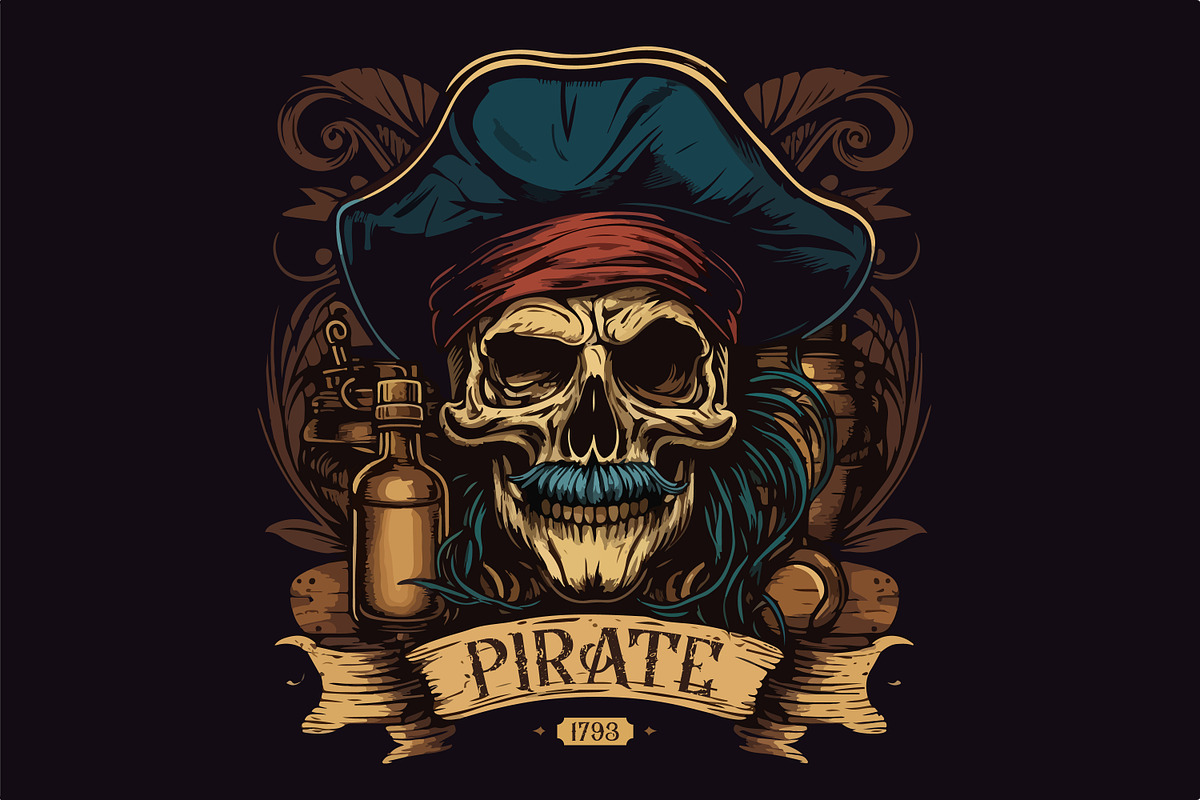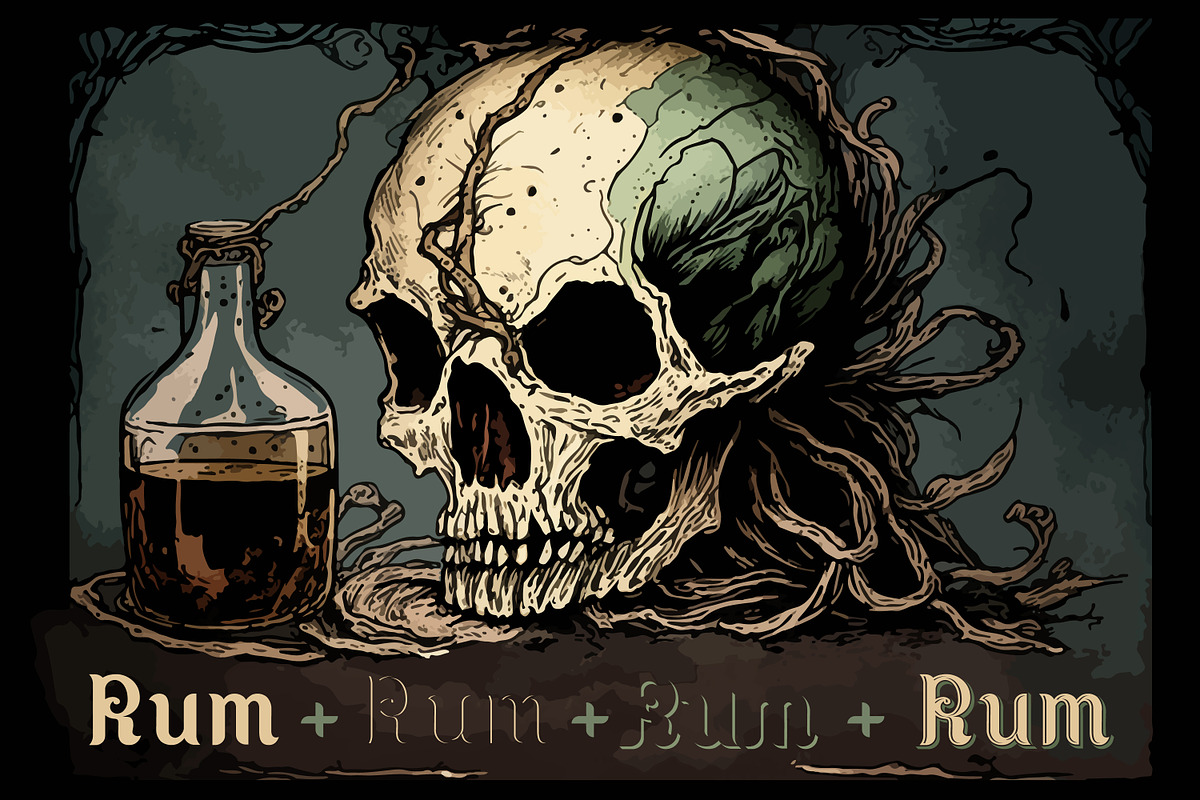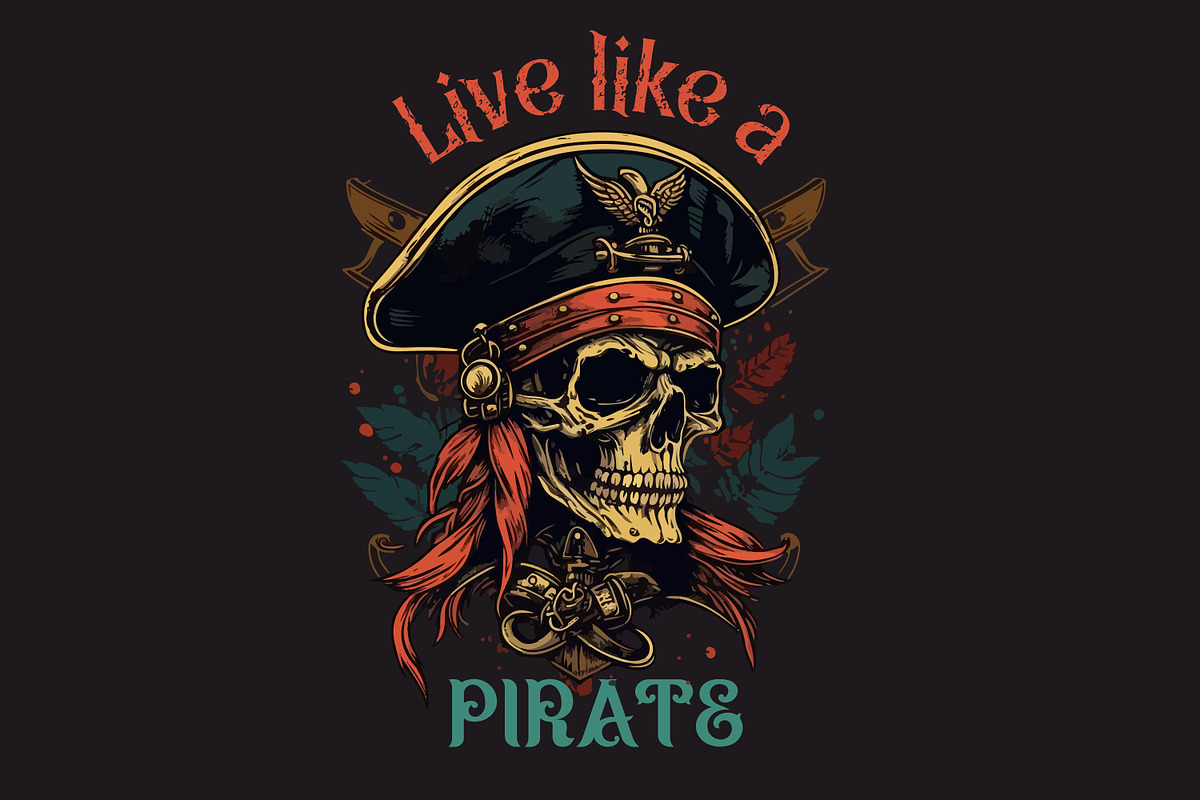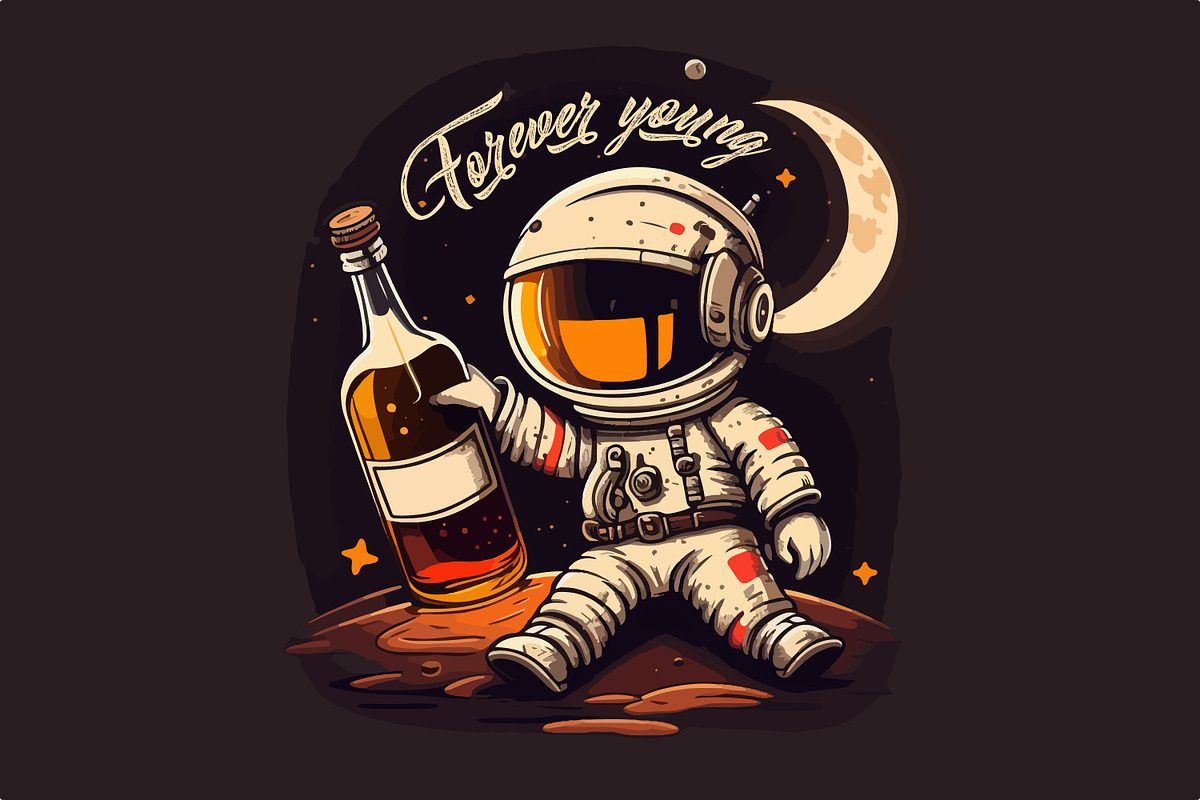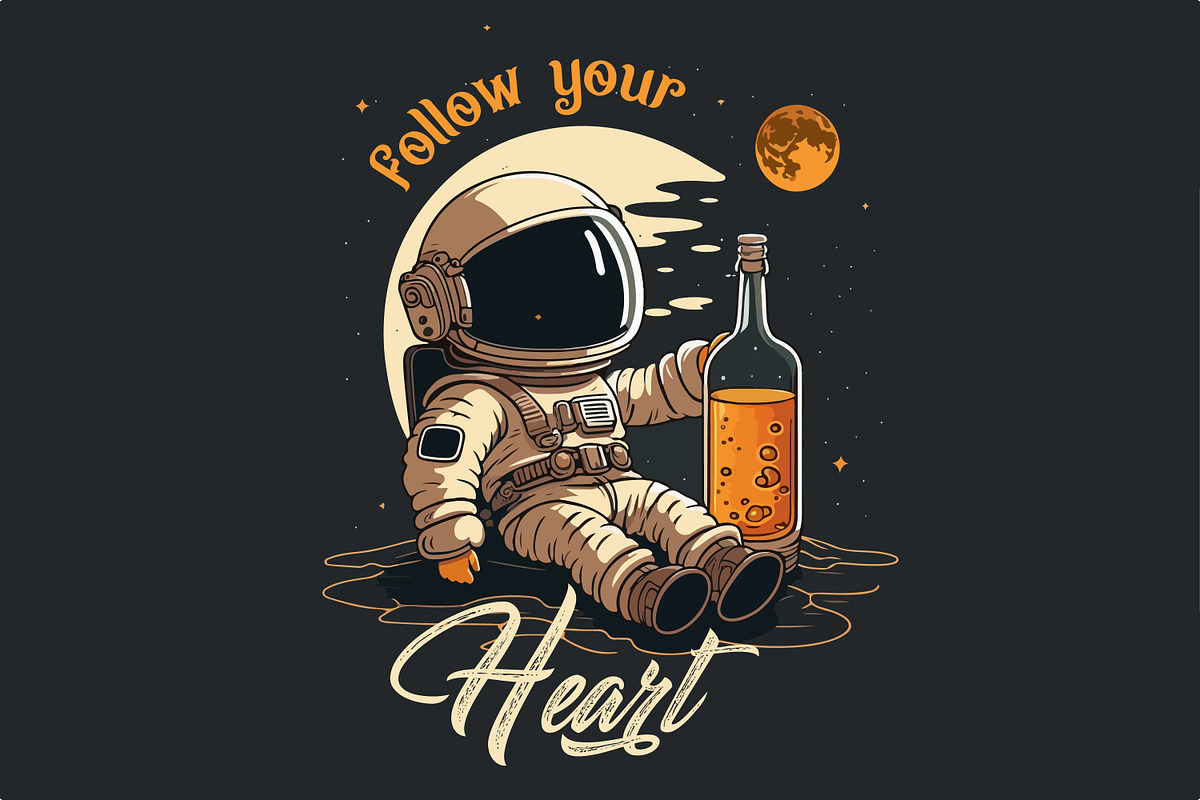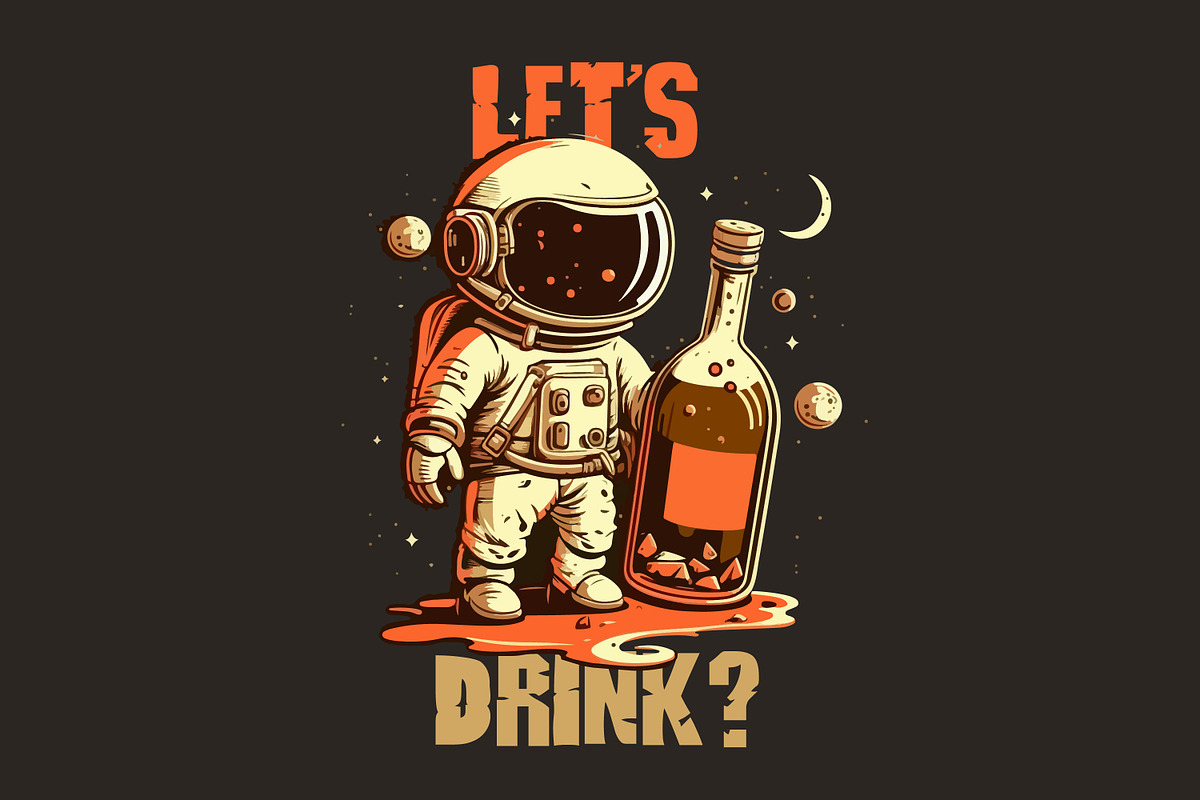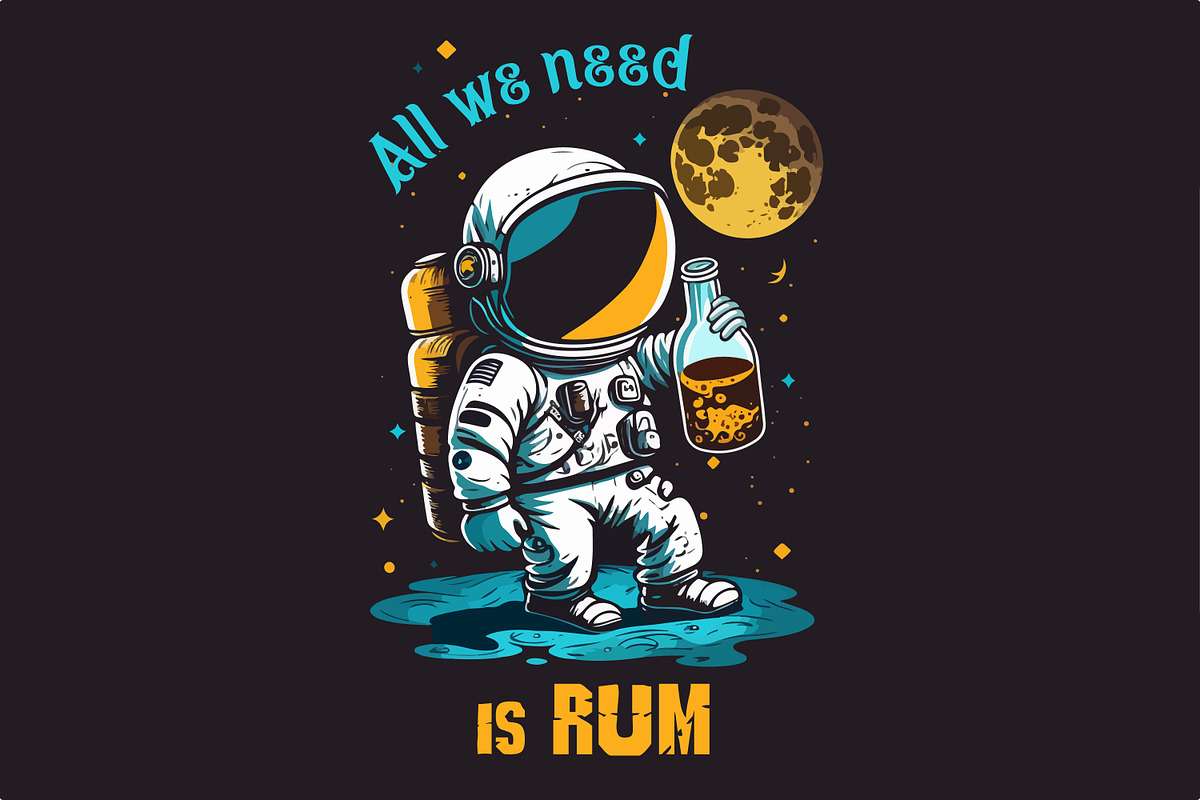
Dark rum vintage typeface plus bonus
Dark rum. Vintage layered font with 4 writing styles. Opentype and web version. Bonus to the font 28 vintage illustrations for t-shirts. Skulls, astronauts, girls, rum, goblin. In EPS and PNG format. Good for headings and illustrations.